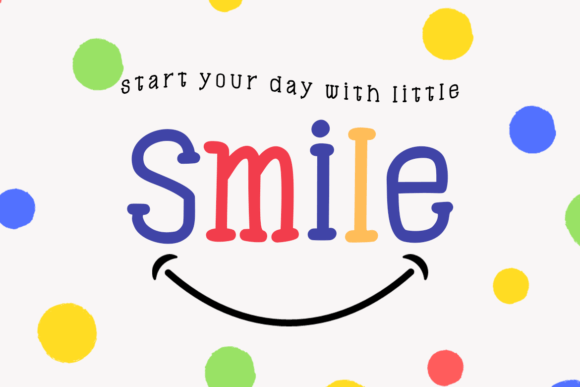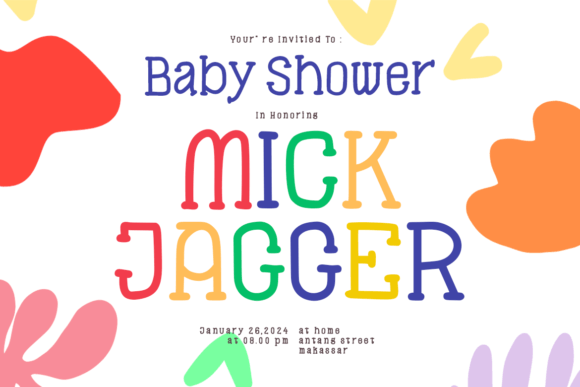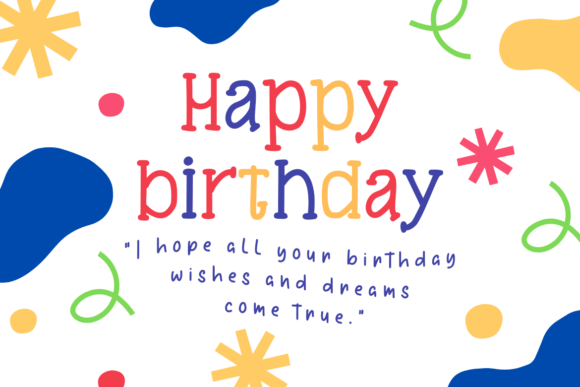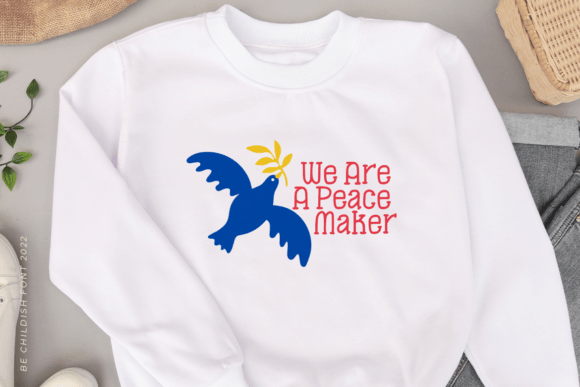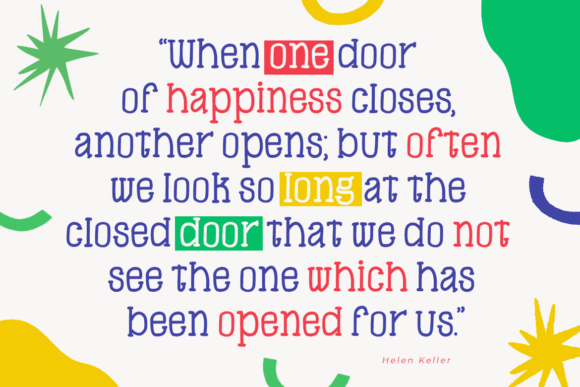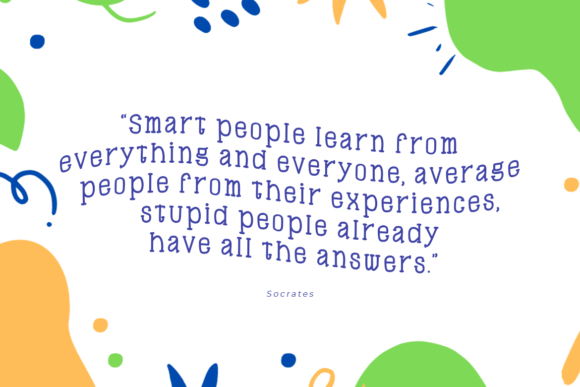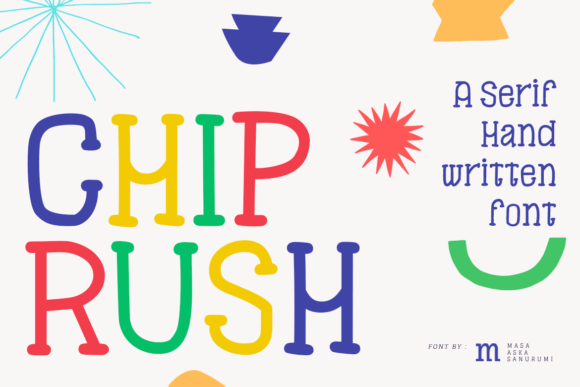
Introducing Chiprush Font: The Ultimate Choice for Creative Projects
Are you a designer, crafter, or DIY enthusiast looking for a font that can add a touch of playfulness and fun to your creative projects? Look no further than Chiprush Font! This versatile, cute, and playful handwritten font is perfect for a wide range of applications, from greeting cards and headlines to posters, flyers, and more.
What Makes Chiprush Font So Special?
Chiprush Font is a unique and charming font that is sure to capture the attention of your audience. Its playful and handwritten style gives it a personal and friendly feel, making it perfect for projects that require a touch of whimsy and fun. Whether you’re creating a greeting card, a poster, or a social media graphic, Chiprush Font is sure to add a clean and fun feel to your design.
Key Features of Chiprush Font
- Versatile: Chiprush Font is a versatile font that can be used for a wide range of applications, from formal to informal projects.
- Cute and Playful: The font’s playful and handwritten style gives it a cute and charming feel that’s perfect for projects that require a touch of fun and whimsy.
- Handwritten: Chiprush Font is a handwritten font that has a personal and friendly feel, making it perfect for projects that require a touch of personality.
- Clean: The font’s clean and simple design makes it easy to read and use in a variety of projects.
Uses of Chiprush Font
Chiprush Font is perfect for a wide range of creative projects, including:
- Greeting Cards: Add a personal touch to your greeting cards with Chiprush Font’s playful and handwritten style.
- Headlines: Use Chiprush Font to create eye-catching headlines for your posters, flyers, and social media graphics.
- Posters: Chiprush Font is perfect for creating fun and playful posters for events, promotions, and more.
- Social Media Graphics: Use Chiprush Font to add a touch of personality to your social media graphics, including Facebook posts, Instagram stories, and more.
- Crafting Projects: Chiprush Font is perfect for crafters who want to add a personal touch to their projects, including handmade cards, gift tags, and more.
Tips for Using Chiprush Font
Here are some tips for using Chiprush Font in your creative projects:
- Use it with Color: Chiprush Font looks great when paired with bright and bold colors. Experiment with different color combinations to add a pop of color to your design.
- Mix it with Other Fonts: Chiprush Font can be paired with other fonts to create a unique and interesting design. Try pairing it with a bold font for a striking contrast.
- Experiment with Sizes: Chiprush Font looks great in a variety of sizes. Experiment with different font sizes to create a visually interesting design.
Chiprush Font is a versatile, cute, and playful handwritten font that’s perfect for a wide range of creative projects. Its playful and friendly style makes it perfect for designers, crafters, and DIY enthusiasts who want to add a touch of fun and personality to their designs. With its clean and simple design, Chiprush Font is easy to read and use in a variety of projects. So why wait? Add Chiprush Font to your creative projects today and give them a clean and fun feel!